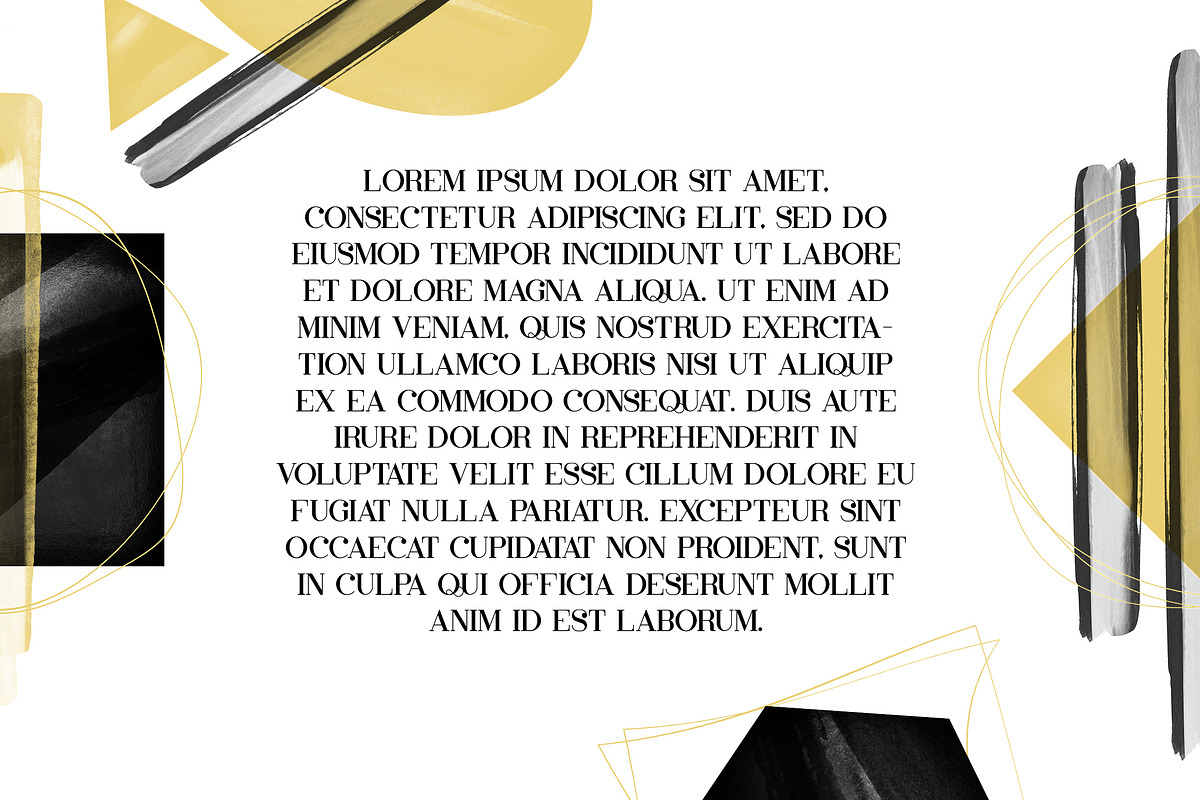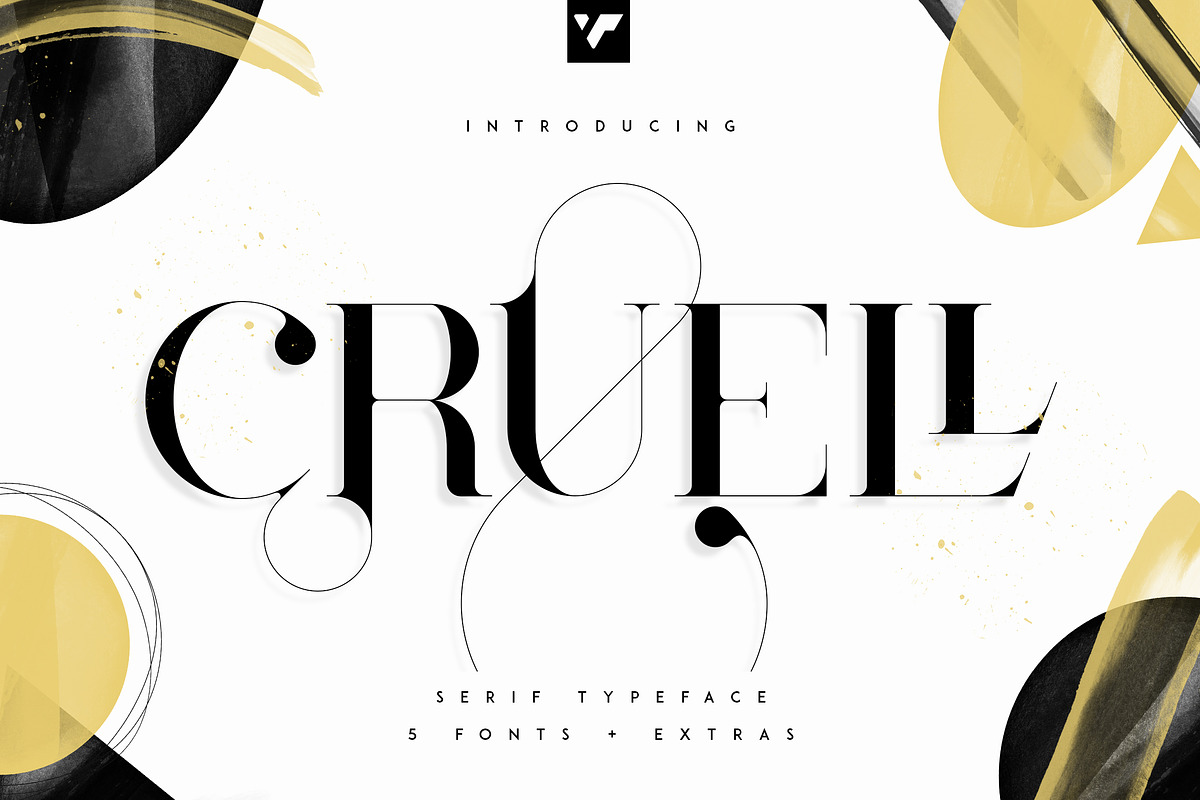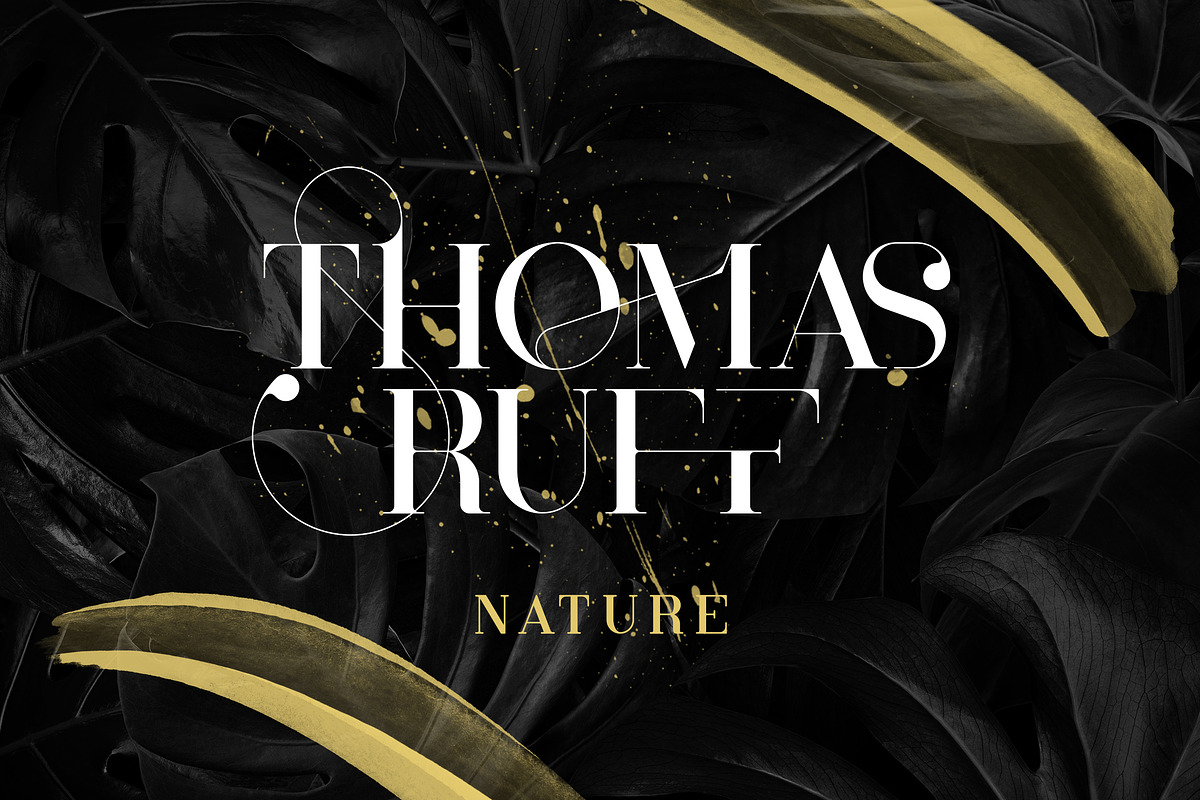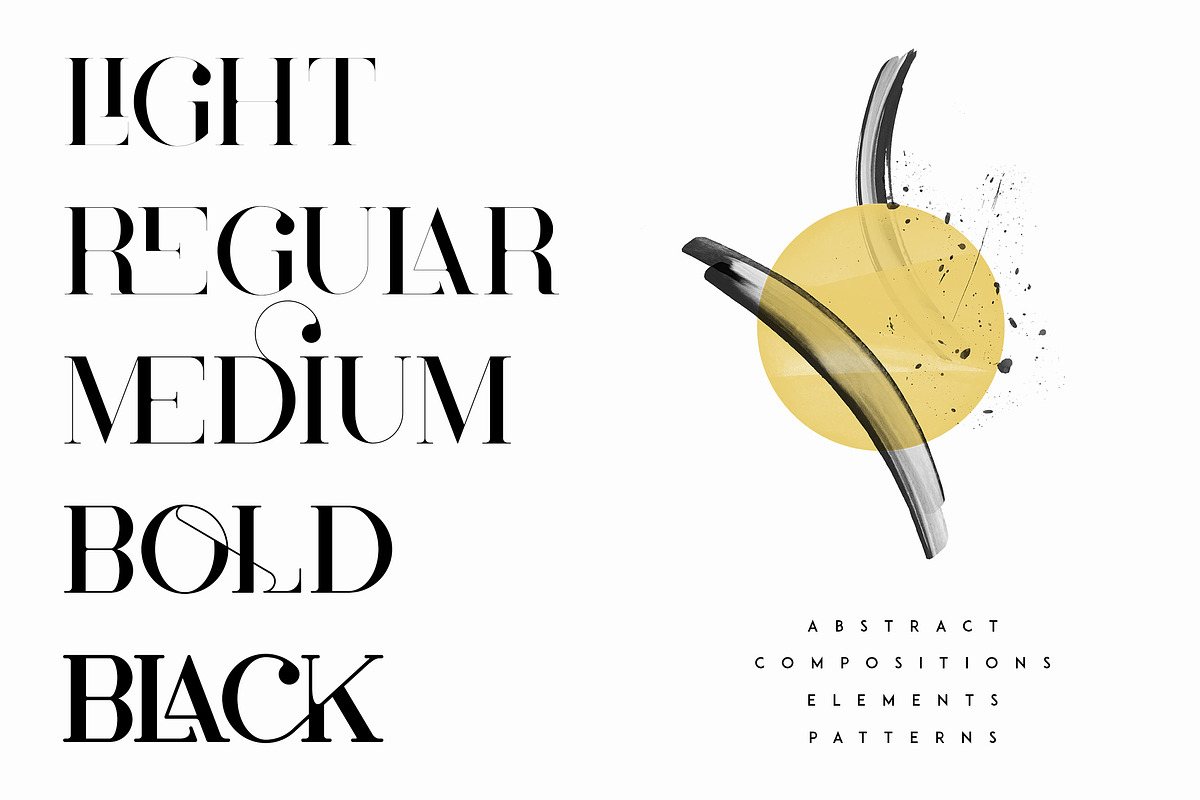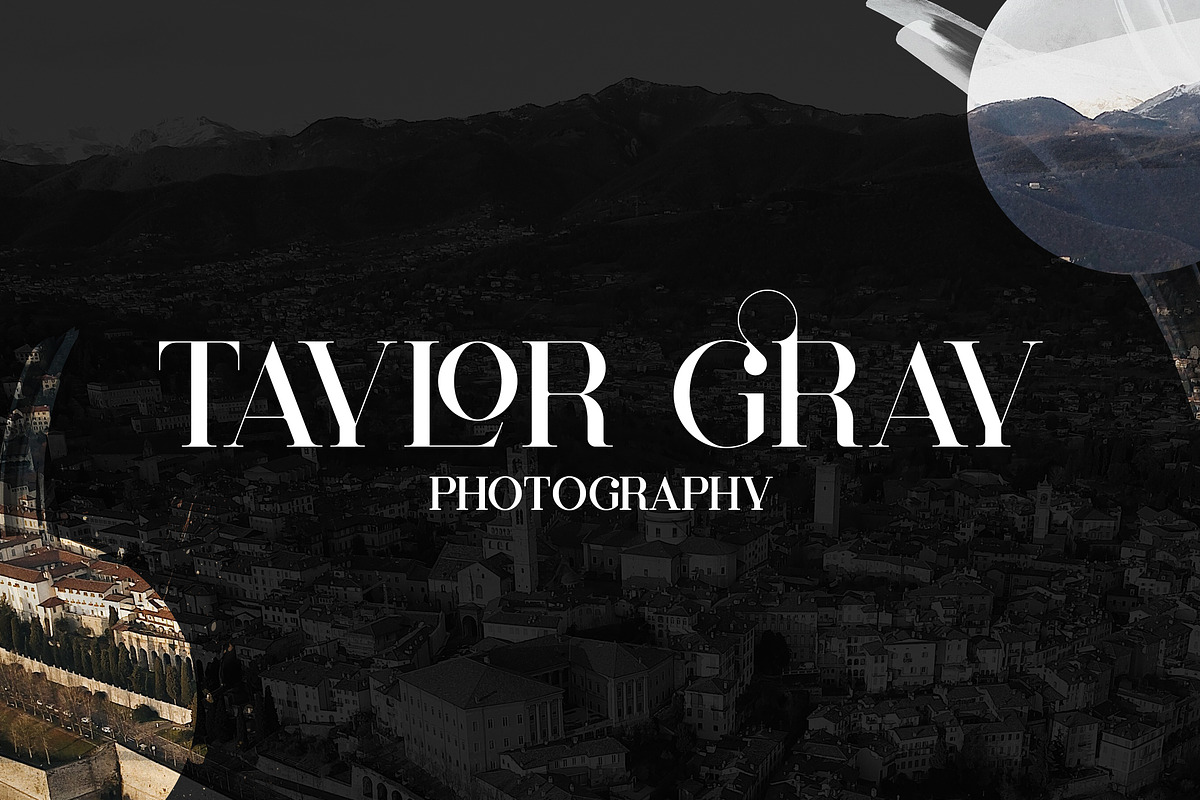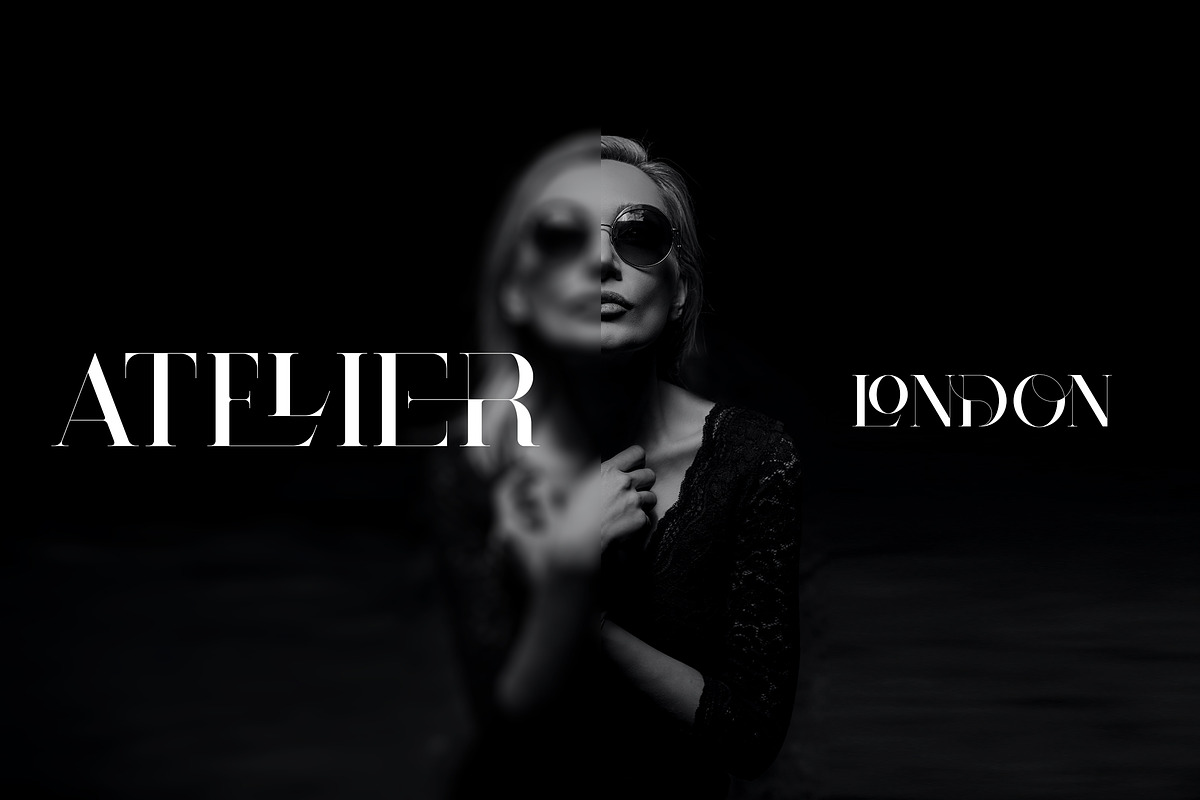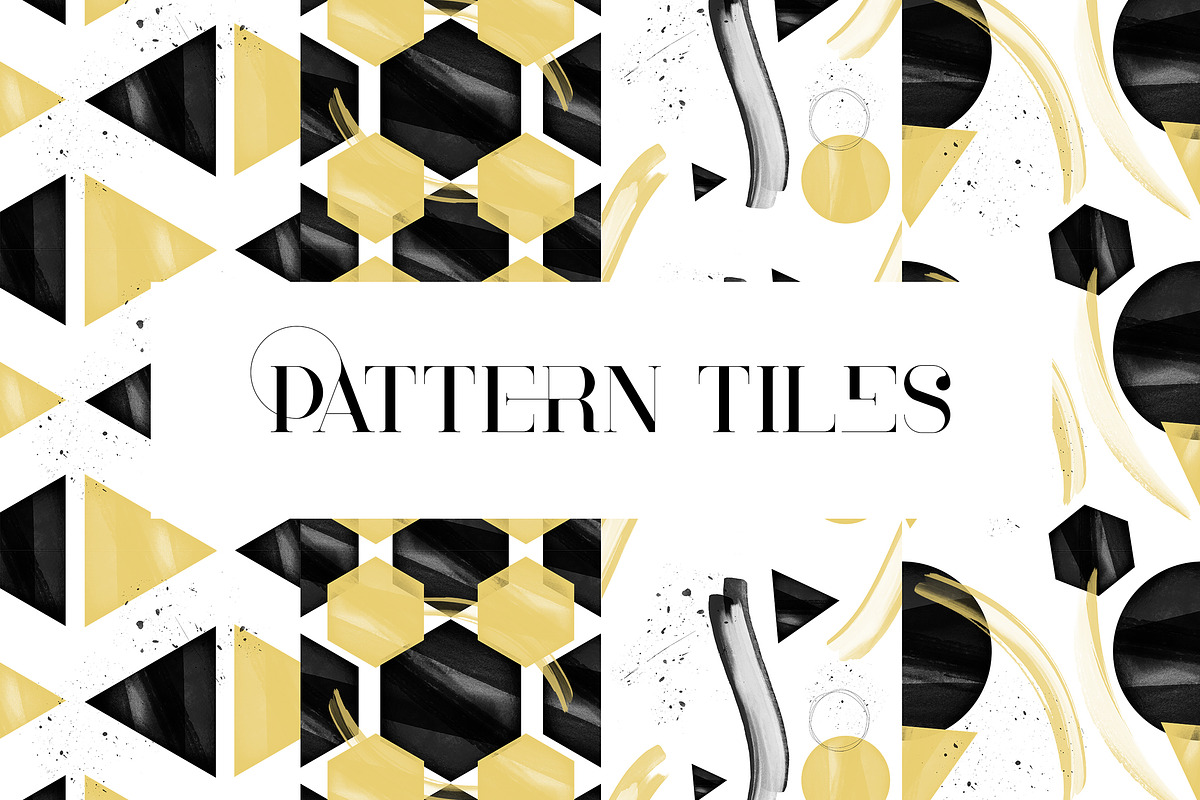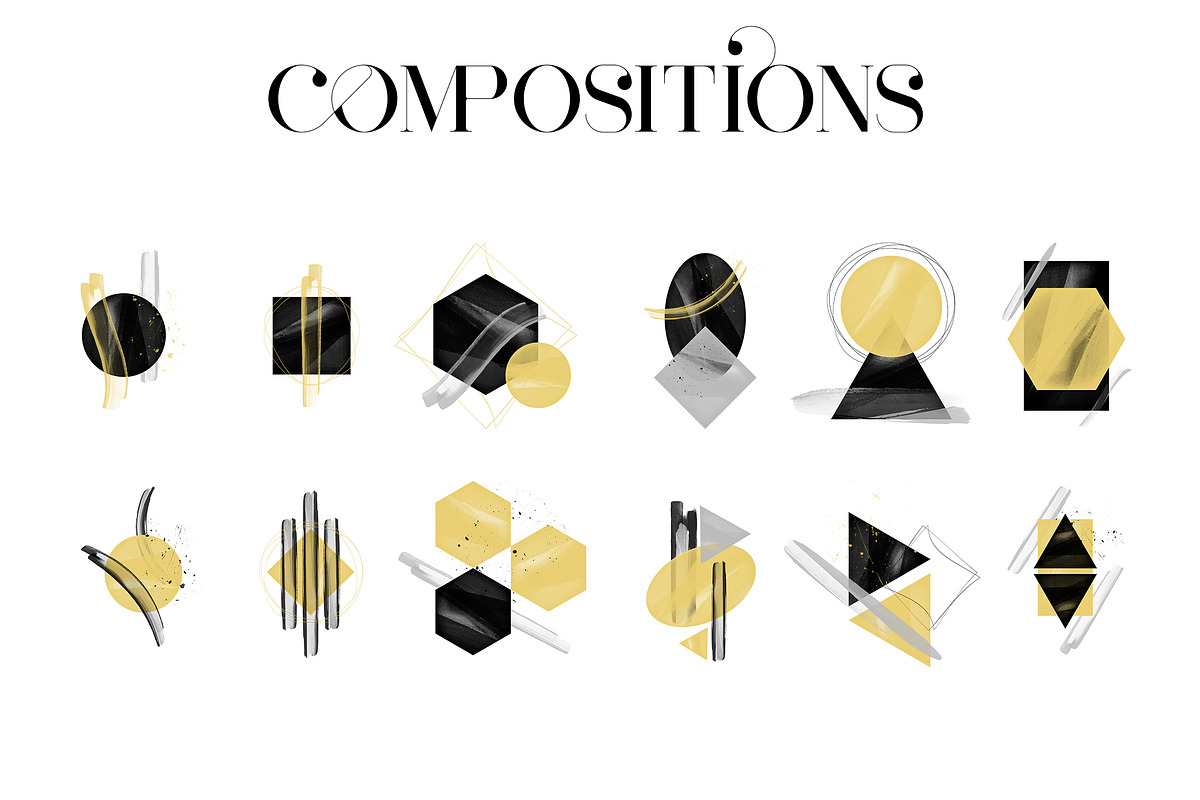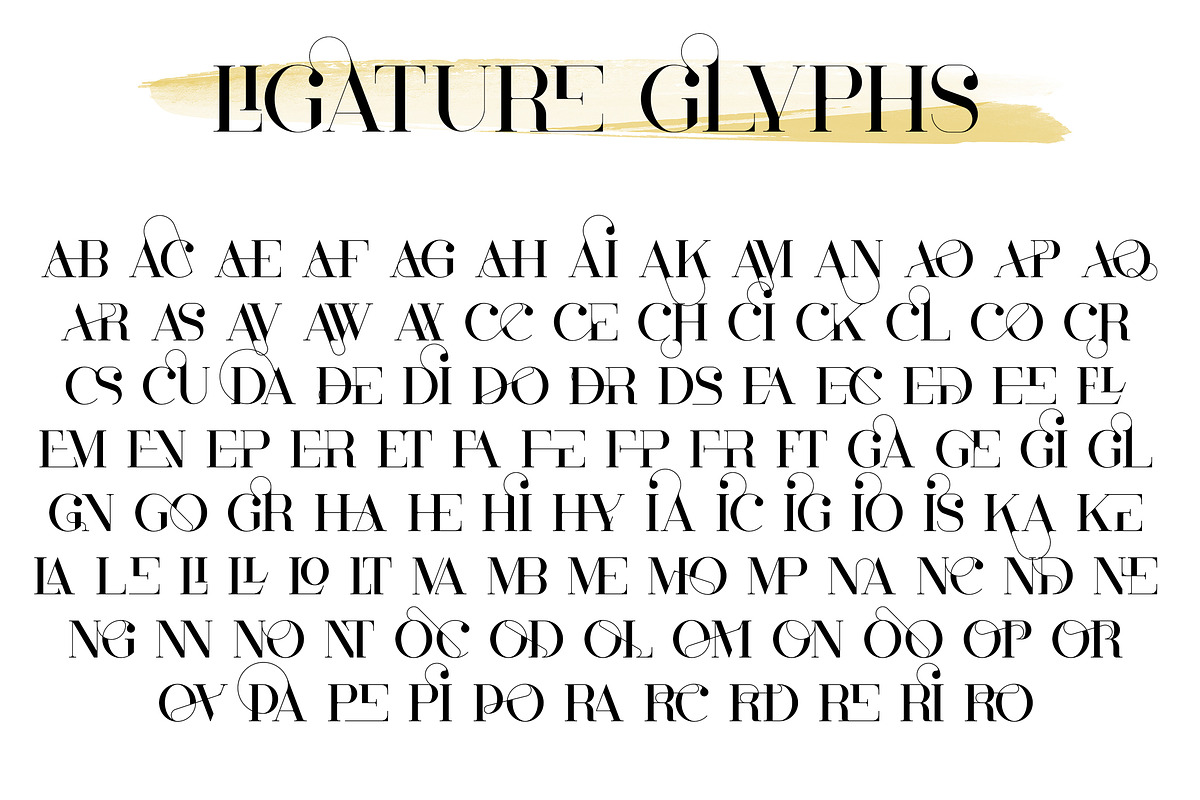
Cruell Serif Typeface - 5 fonts
Introducing Cruell Serif Typeface - 5 fonts + graphics
Cruell is clean, luxury typeface with 5 fonts loaded with ligature glyphs, alternates and multilingual support to enchant your next project. Added and 12 compositions, 27 elements in 3 premade colors and 4 pattern tiles. Very versatile fonts that works great in large and small sizes.
Cruell is perfect for branding projects, home-ware designs, product packaging, magazine headers - or simply as a stylish text overlay to any background image.
- Uppercase, numeral, punctuation & Symbol
- Light
- Medium
- Bold
- Black
- ligature glyphs
- alternates